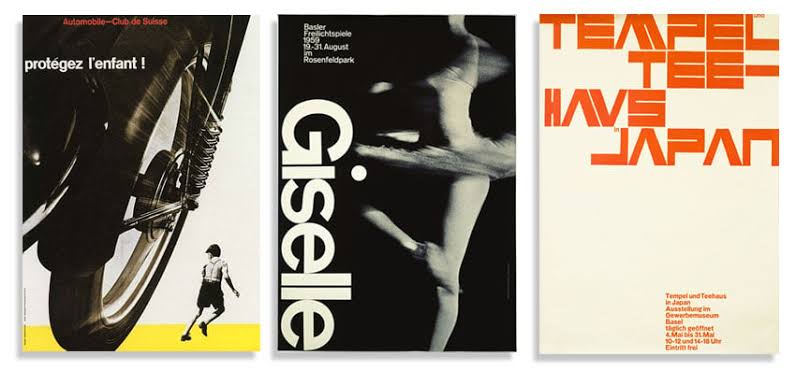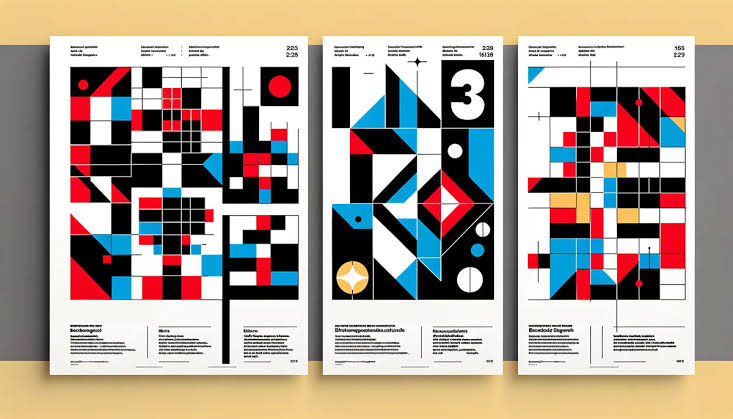
Swiss graphic design style is a timeless approach known for its clarity and order. Rooted in the Swiss International Style, it values function over style. By using clean lines, structured grid layouts, and sans-serif fonts, it transformed how designers convey their messages. Consequently, it serves as a worldwide standard in visual communication.
This design style emerged in the 1940s–50s to bring clarity after the war. Designers created neutral, structured visuals to communicate across languages. Instead of decoration, they focused on order and function. Thus, clear communication became the heart of the style.
Additionally, this style relies on grids, spacing, and clear typography like Helvetica. Therefore, designs appear simple yet purposeful, focusing only on essential elements. This minimal approach not only enhances readability but also ensures timeless appeal. Today, its influence remains strong in modern visual design.
Swiss graphic design history has its roots in earlier European movements like Bauhaus and Constructivism. These schools promoted function, structure, and the integration of art with industry. Consequently, their principles deeply influenced Swiss design philosophy. Simplicity and purpose became key elements of the style.
Later, in the mid-20th century, designers like Müller-Brockmann and Hofmann refined these ideas. Through posters and teaching, they shaped a clear, global design language. Moreover, their contributions set new standards in visual communication. Their legacy remains central to design education today.
Meanwhile, schools like the Basel School of Design played a vital role in spreading the style. They emphasized discipline, structure, and social responsibility in design. As a result, Swiss graphic design gained global influence. By the 1960s, it shaped branding and signage worldwide.
Swiss design relies on invisible grids to align elements with precision. This structure brings visual harmony and improves legibility. It ensures consistency across posters, websites, and layouts.
Rather than symmetry, Swiss designers use asymmetry to create balance and flow. This approach adds visual interest without losing order. It helps guide the viewer’s attention naturally.
Sans-serif typefaces like Helvetica reflect clarity and neutrality. Text is aligned left for better readability and visual comfort. In this approach, typography is a primary tool to deliver messages with precision and restraint.
In Swiss graphic design, designers use clear differences in size and weight (headlines are often set in bold weights, subheadings in medium, and body text stays regular or light) to build a clear visual hierarchy. Color choices are minimal, often black, white, and one accent. This keeps the focus on content, not decoration.
Swiss design puts purpose before aesthetics in every element. There are no unnecessary visuals, everything serves a function. This results in clean, effective, and timeless design.
Swiss international style graphic design has had a lasting global impact, especially in how we communicate visually today. Below are four areas where its influence is clearly seen.
Many global brands, such as Lufthansa, use Swiss design principles for clarity and consistency. Its clean visuals help logos and messages transcend cultural barriers. This results in strong, memorable brand identities.
Muji Homepage | Image Source: uk.muji.eu
Grid-based layouts and clean fonts are essential in user-friendly interfaces. Swiss design applies this with precision, and brands like Muji reflect its minimalist feel perfectly.
Print Design with Swiss Style | Image Source: design.tutsplus.com
Swiss principles influence modern magazines, reports, and news layouts through structured grids and clear hierarchy. These elements work together to improve both readability and information flow.
Educational Materials with Swiss Style | Image Source: designyourway.com
Design schools worldwide teach Swiss graphic design methods as a foundation. Students learn structure, clarity, and research-driven aesthetics. These values shape how designers solve visual problems today.
Modern designers can easily apply Swiss design principles using tools like Figma or Adobe InDesign, which support grid systems and precise alignment. These features make it easier to preserve the clean, minimalist, and structured aesthetic that defines Swiss graphic design.
For typography, neutral and legible fonts are key to this style. While Helvetica and Univers are classics, modern fonts like Inter also work well. In short, selecting the right font becomes a crucial design decision. The Swiss style values typography that supports communication, not just visual appeal.For those seeking reliable fonts for graphic designers, Zarma Type offers a perfect fit. Our server license supports server embedding, POD use, and high web traffic with ease. Additionally, we offer a one-time purchase with lifetime access, which is practical and timeless. So, don’t hesitate to explore our clean and modern typefaces today!